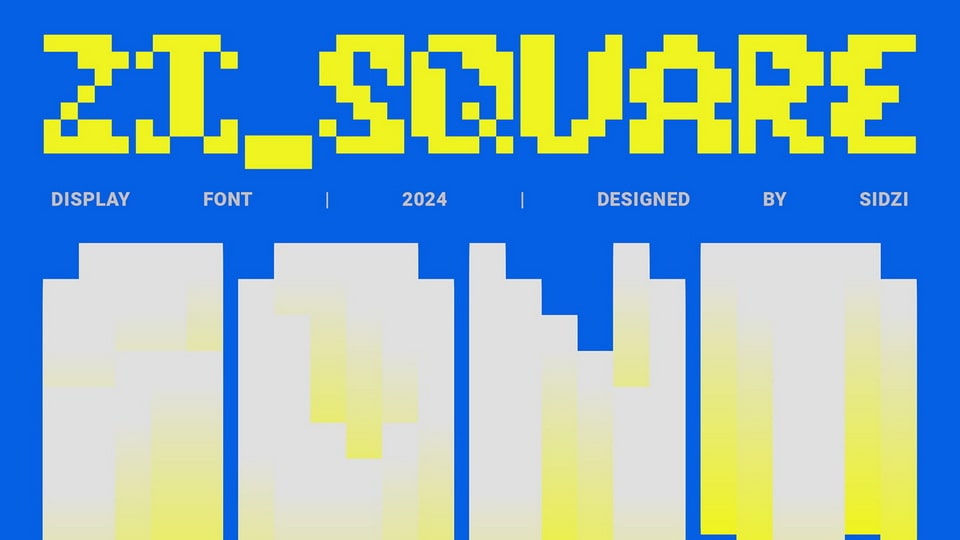
Download ZI_Square font, a bold, pixel-inspired typeface with clean, square edges that bring a retro-modern vibe to your designs.
Designer: Siddharth Jain